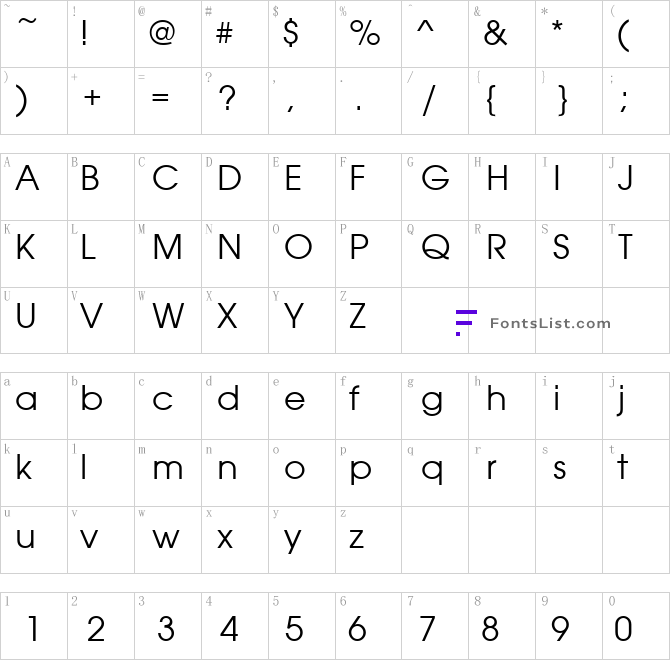
- Font Name:AvantGarGotItcTEE
- Subfamily:URW:AvantGarGotItcTEE-Book:1994
- Full Name:AvantGarGotItcTEE
- PostScript:AvantGarGotItcTEE-Book
AvantGarGotItcTEE.ttf is a very beautiful artistic font, AvantGarGotItcTEE.ttf is widely used in the design and printing of various books and pictures,AvantGarGotItcTEE.ttf has a strong visual impact,AvantGarGotItcTEE.ttf is a commonly used font in newspapers, magazines and books, and is used in posters, e-commerce Poster design, store design, logo design, font design and other fields.AvantGarGotItcTEE.